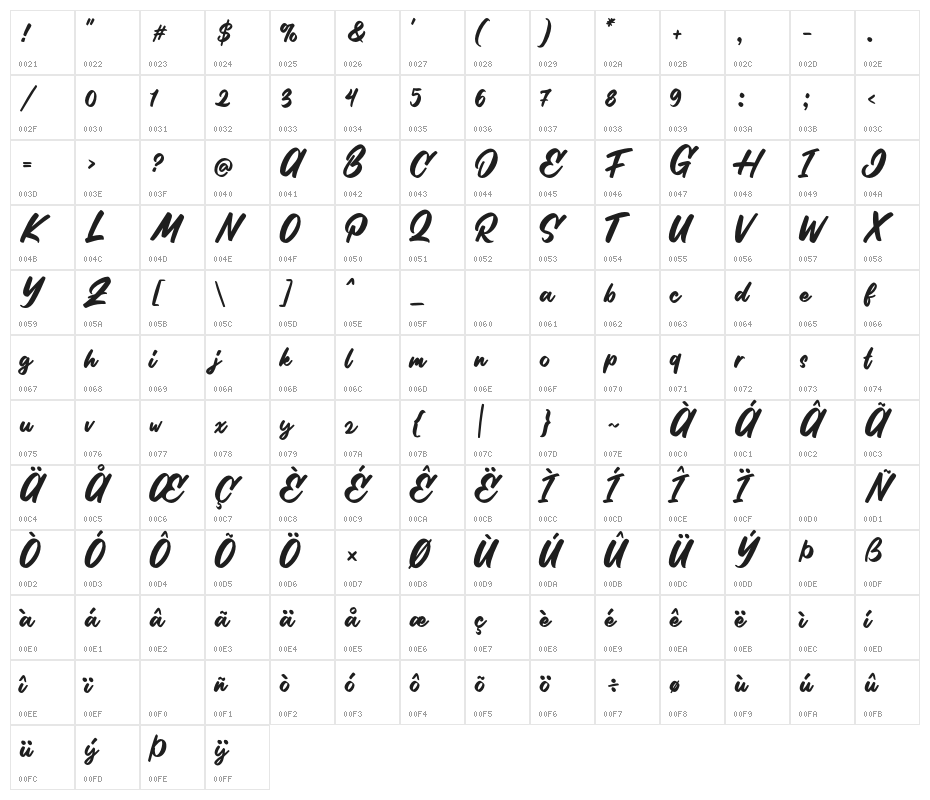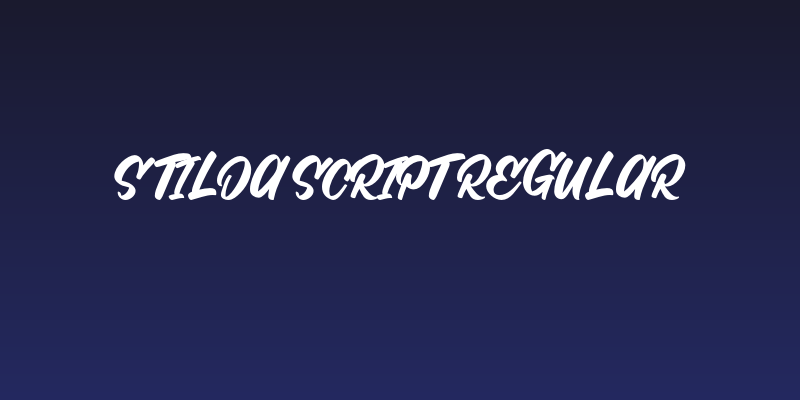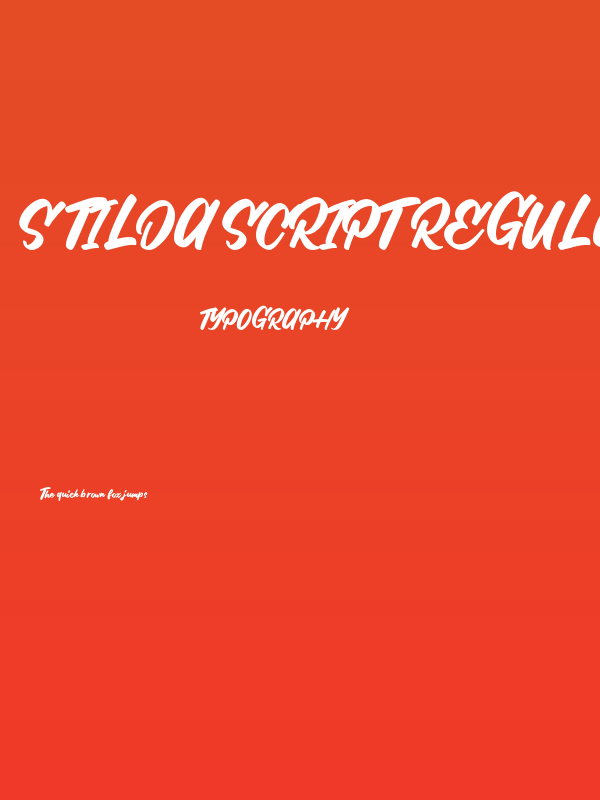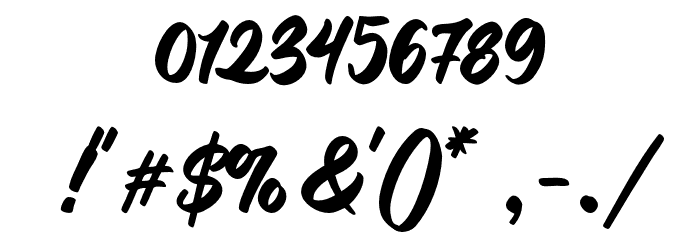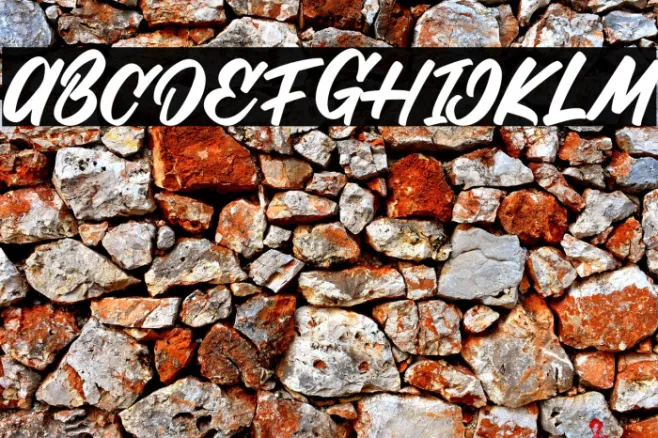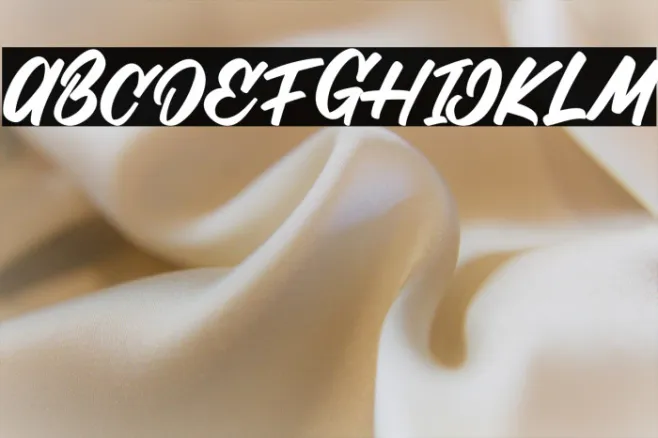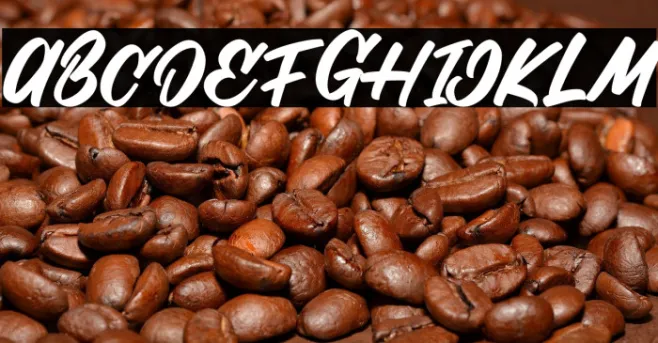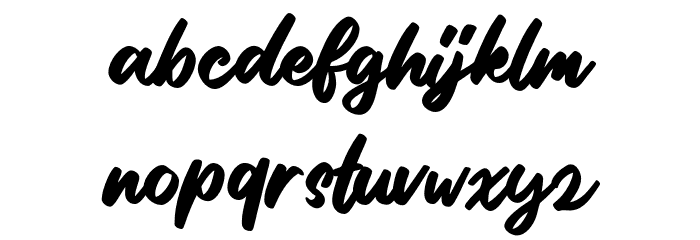
Stilda Script Regular Font
Stilda Script Regular Description
This script font features a bold and flowing style, characterized by its smooth, connected strokes that emulate a natural handwriting feel. The uppercase letters are prominent and slightly slanted, giving a dynamic and energetic appearance. Lowercase letters maintain a consistent flow, enhancing readability while retaining an elegant cursive look. The numerals and special characters are crafted with the same fluidity, ensuring a cohesive design throughout. This font is ideal for projects that require a personal touch, such as invitations, greeting cards, or branding materials.